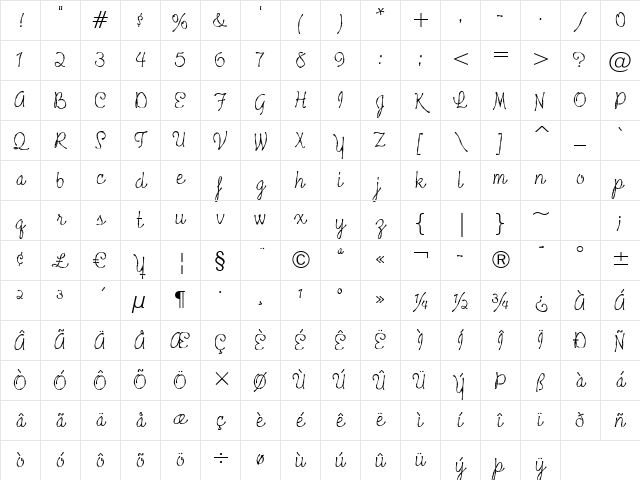
Tropicali Script BTN Bamboo Regular Free Font
Tropicali Script BTN Bamboo Regular
Design Context for Tropicali Script BTN Bamboo
Tropicali Script BTN Bamboo flows with the natural rhythm of handwritten lettering, making it ideal for designs that call for warmth and personal expression.
Font Pairing: Combine Tropicali Script BTN Bamboo with a simple geometric sans for maximum contrast - the tension between flowing curves and clean structure is a classic typographic pairing.
Pro Tip: Use Tropicali Script BTN Bamboo for short runs of text - names, titles, or taglines. Extended body copy in script faces tires the eye quickly.